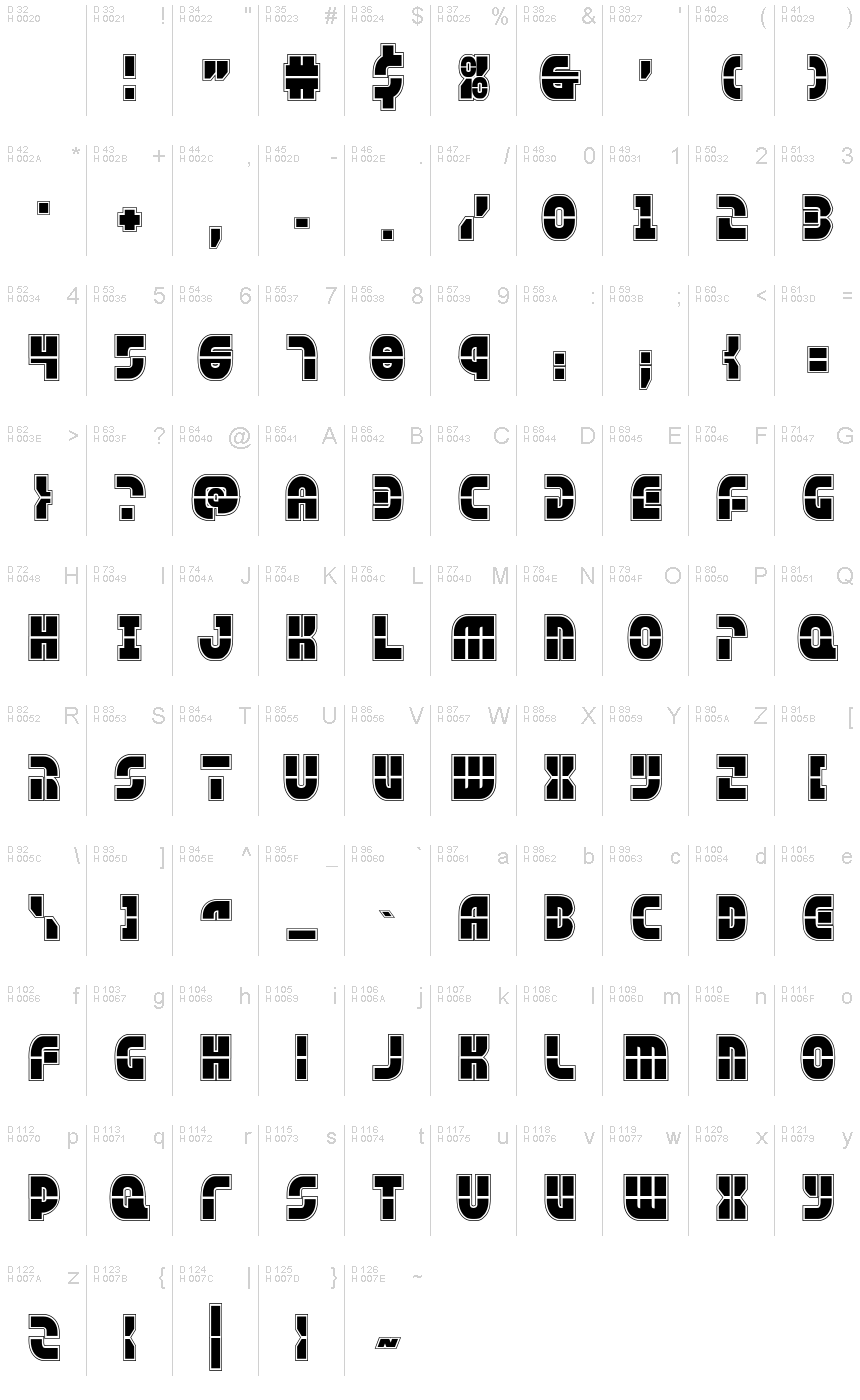
Rebel Command Academy
Rebel Command Academy stands out with its striking futuristic design, expertly crafted by Iconian Fonts. This bold, condensed typeface exudes an audacious character, merging a sense of urgency with a distinct visual presence. The unique letterforms command attention, making it perfect for high-energy contexts where impact is key.
Its aesthetic appeal lies in the interplay of sharp angles and soft curves, creating a dynamic rhythm that captures the spirit of adventure and innovation. Ideal for branding in tech applications, sci-fi themes, or promotional materials aimed at younger audiences, Rebel Command Academy ensures your message is both memorable and impactful. Whether used in posters, game interfaces, or merchandise, this font delivers a powerful statement that resonates with contemporary design sensibilities.